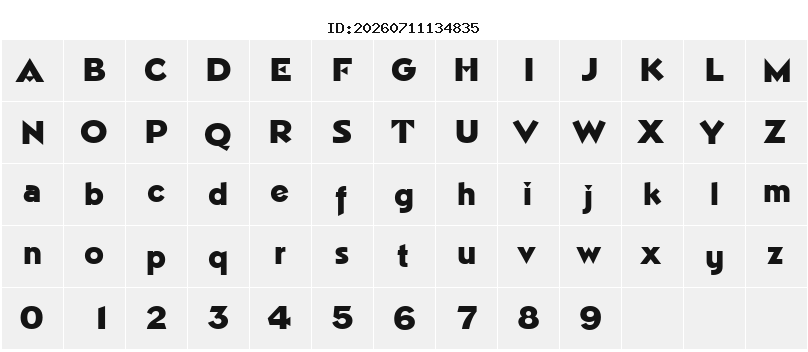
MarioBecker-Heavy Preview
About MarioBecker-Heavy.ttf
MarioBecker-Heavy.ttf is a modern, elegant sans-serif font designed for ultimate readability and visual harmony. Perfect for branding, headlines, web design, and print materials.